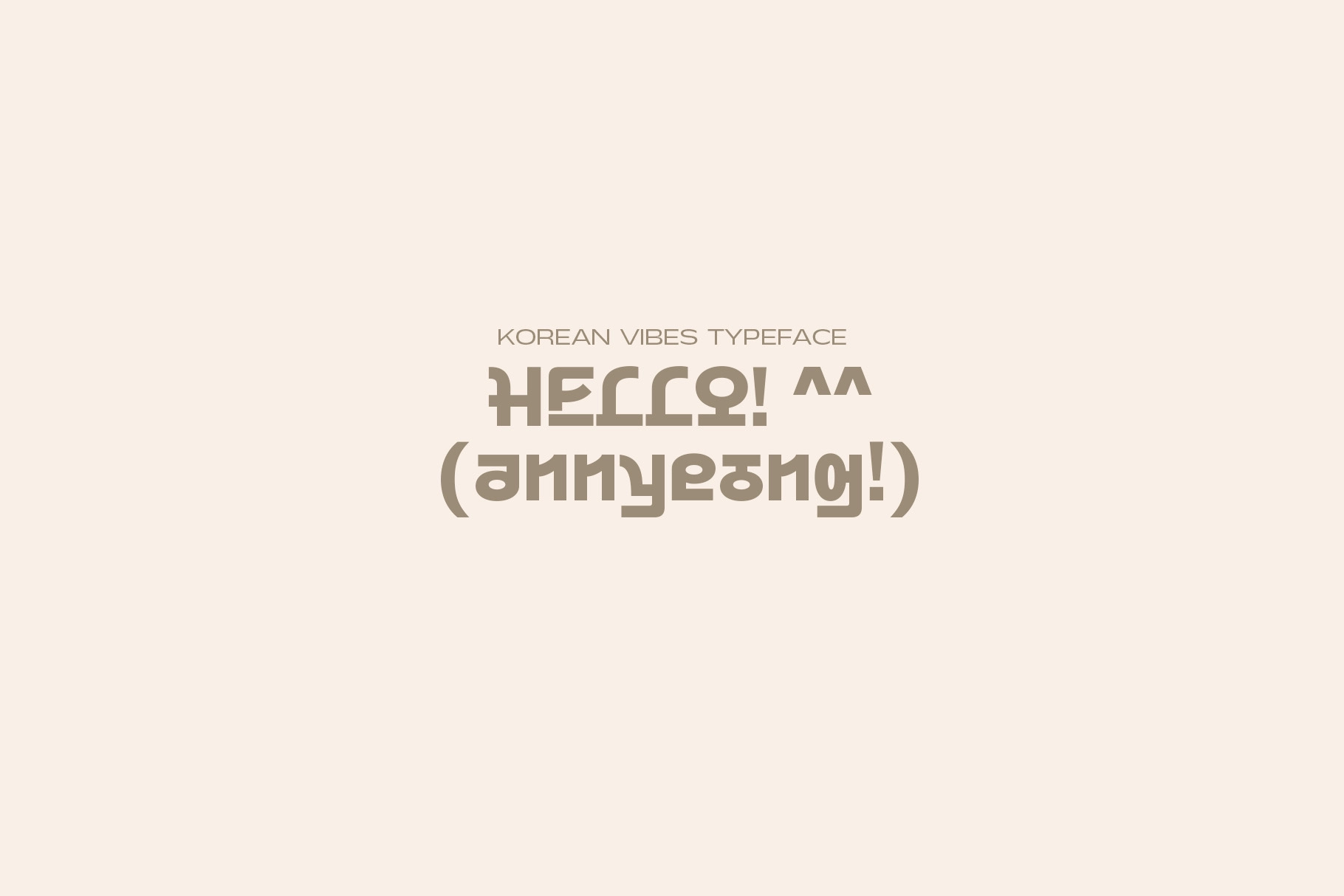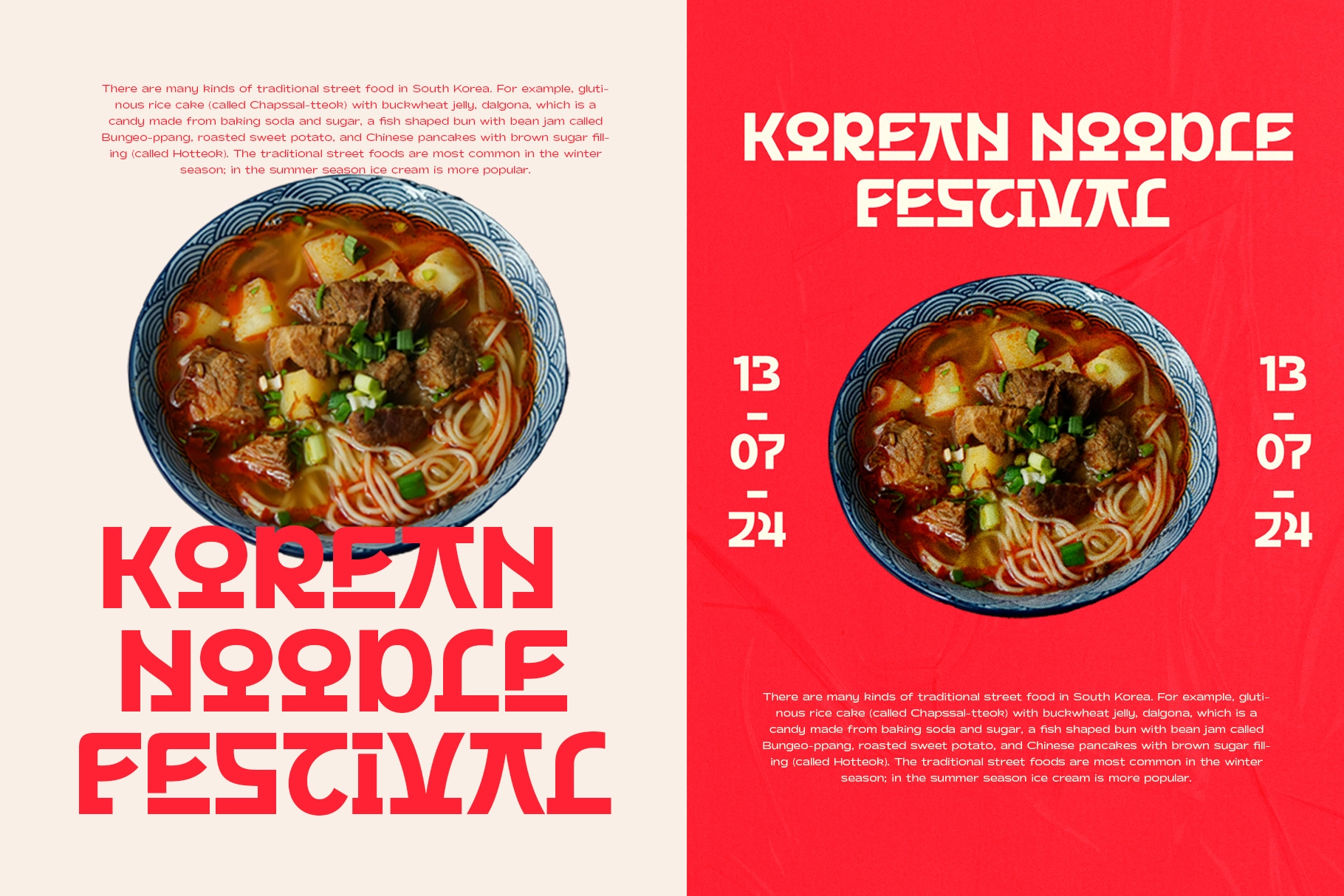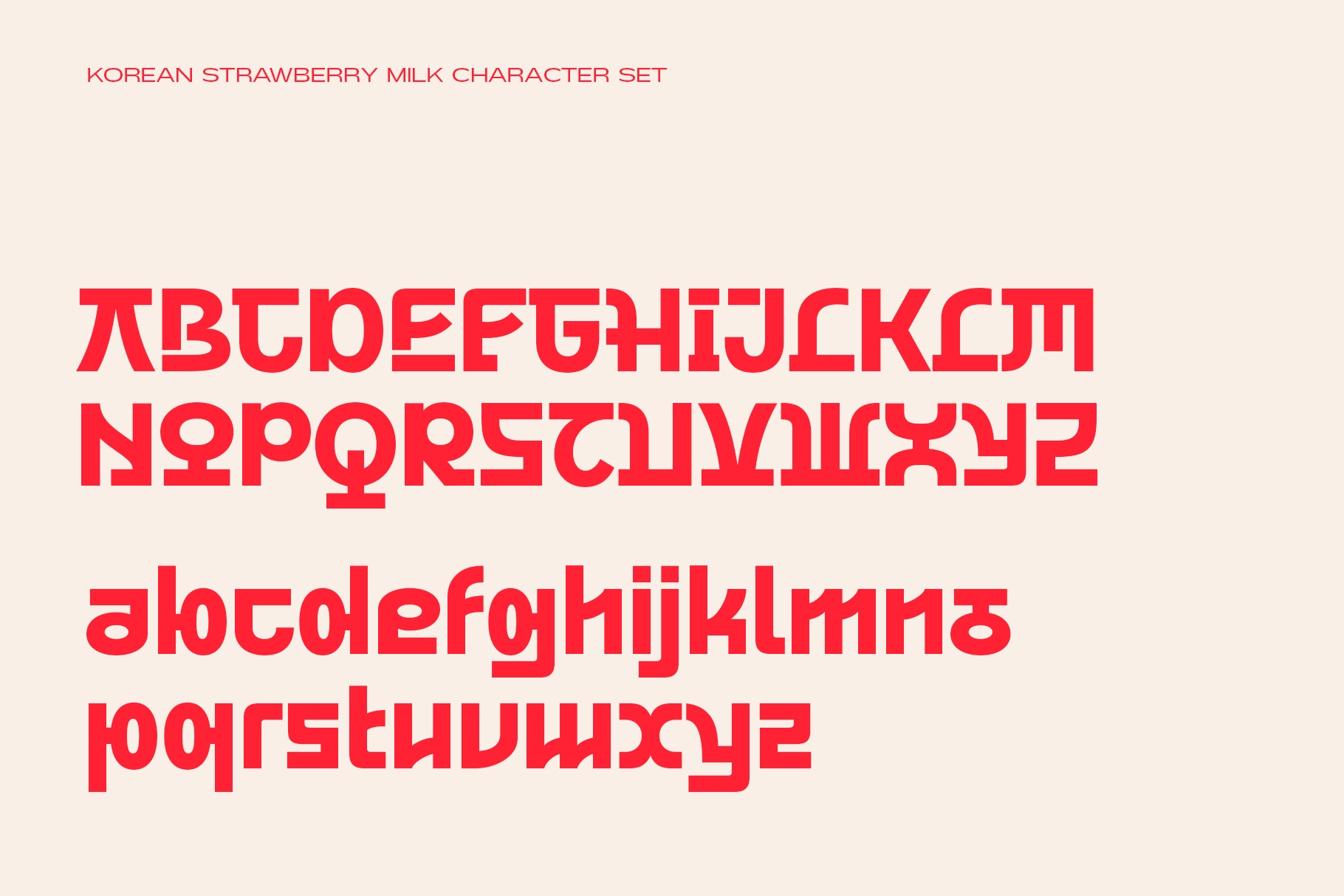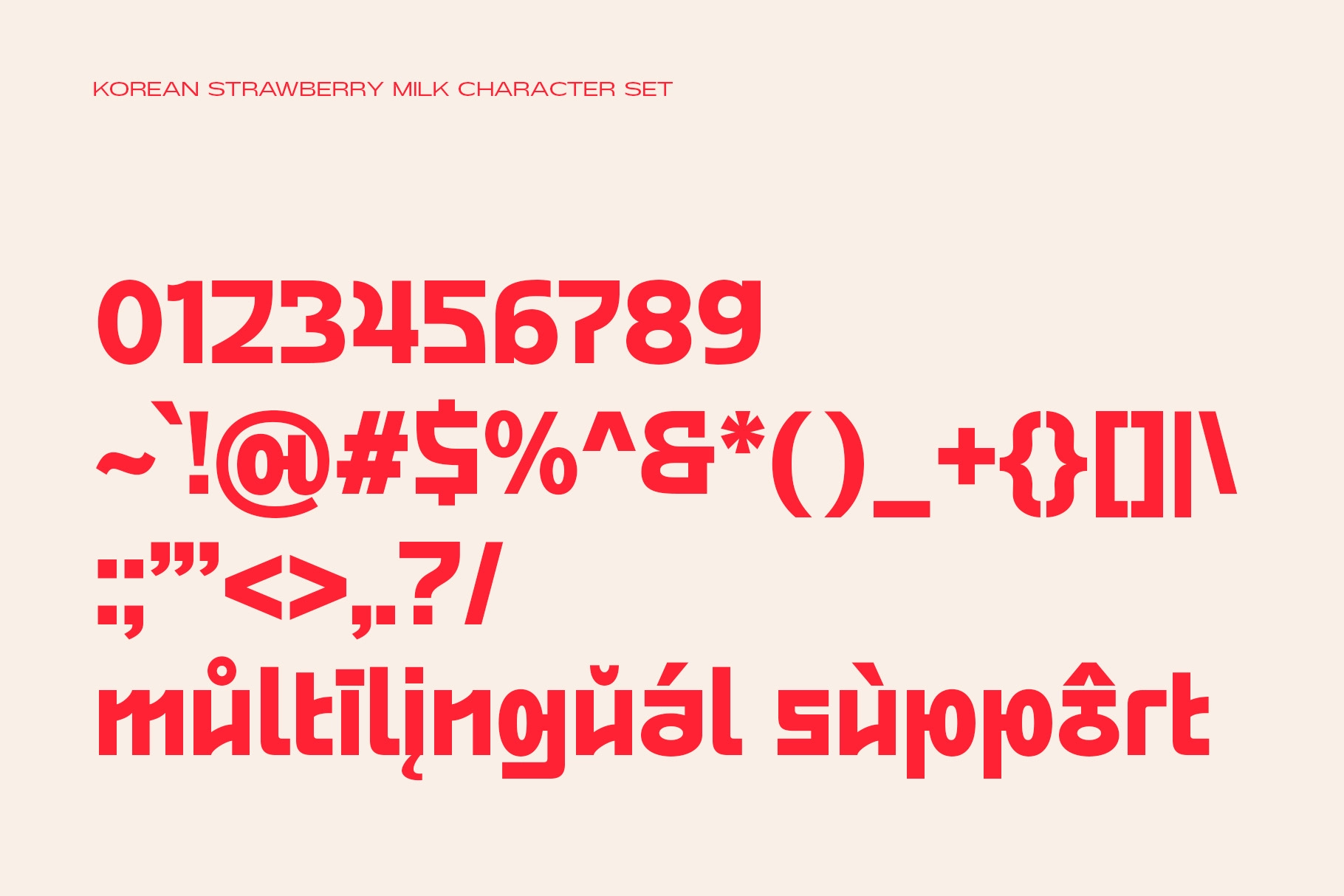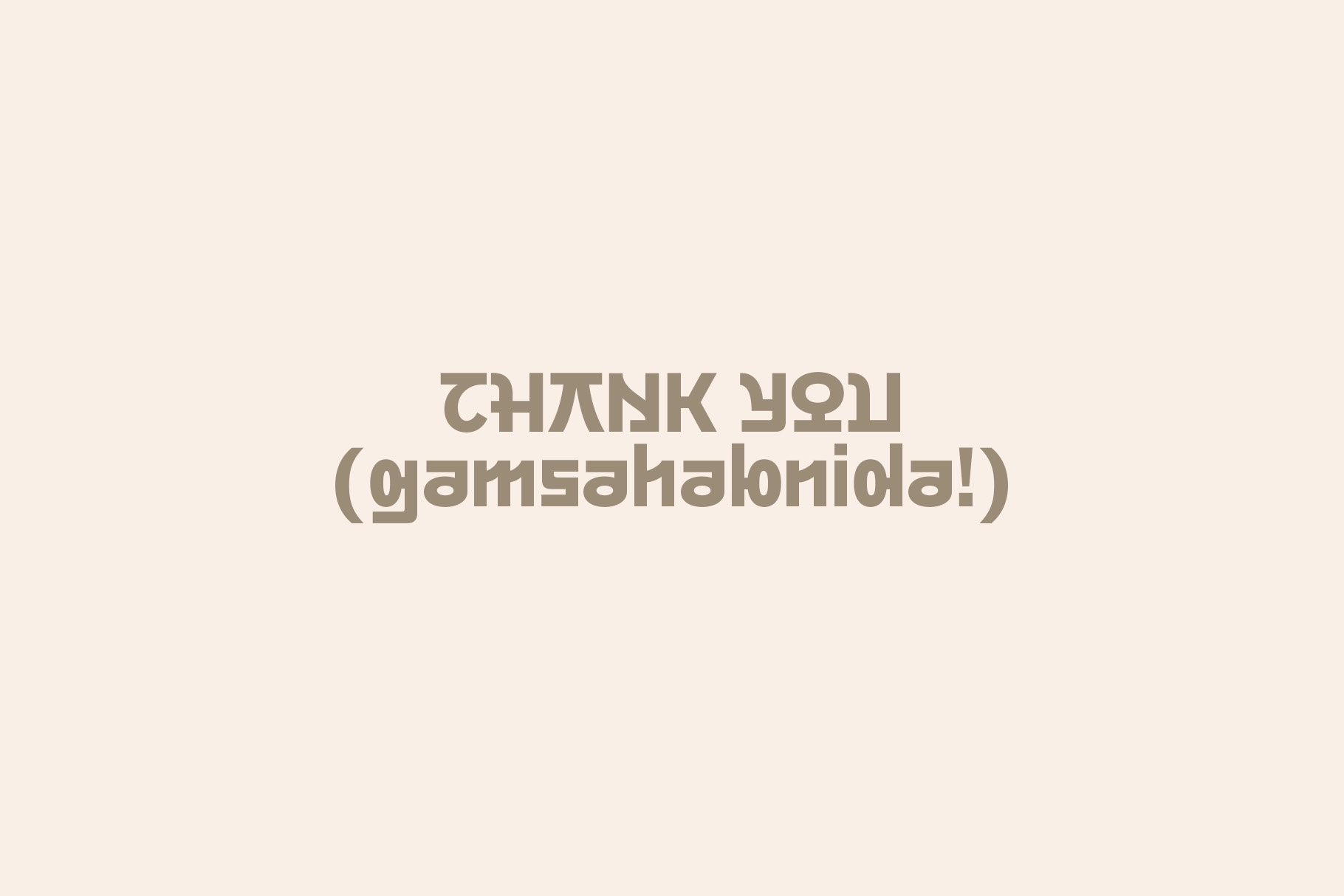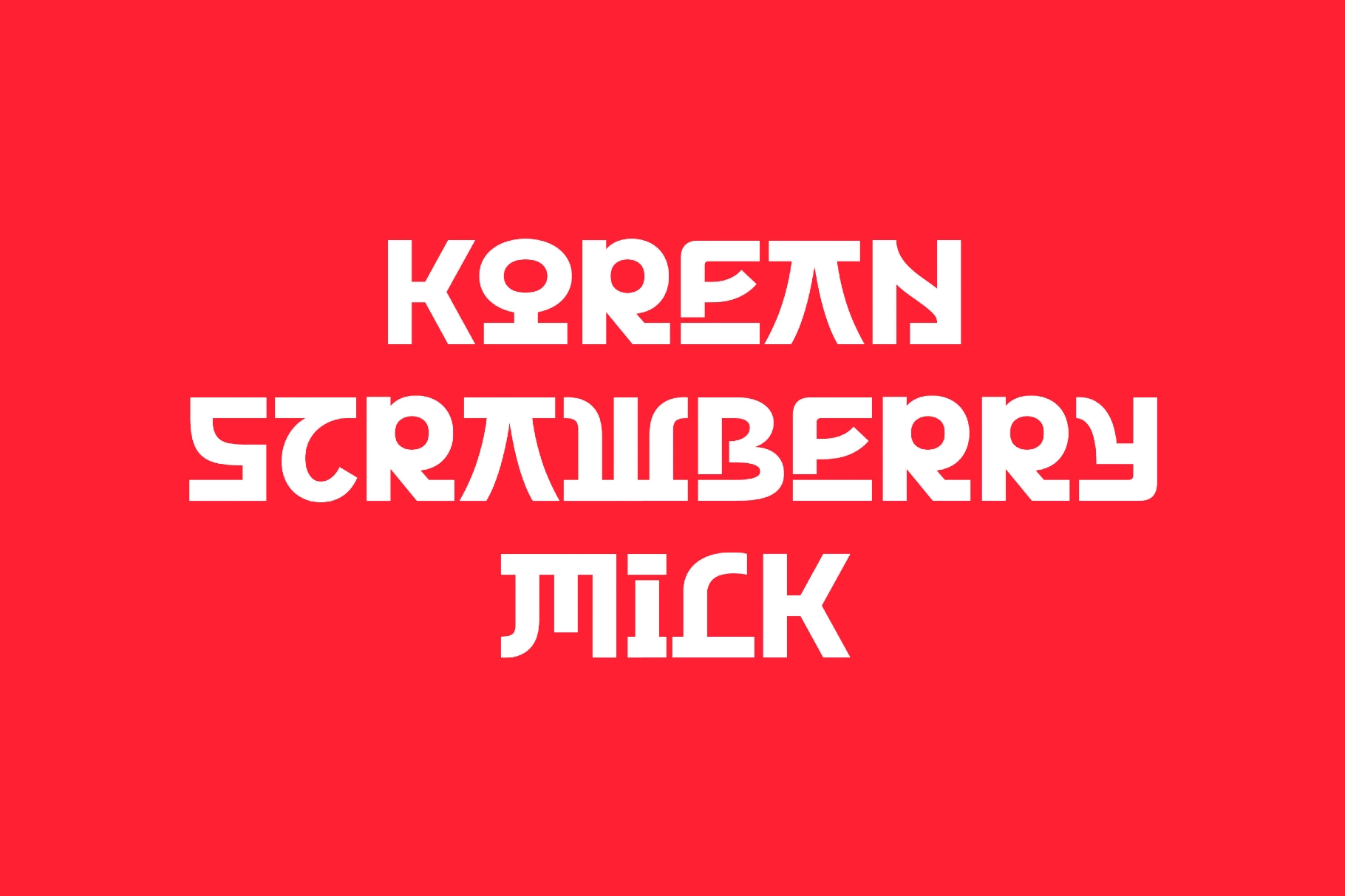
Korean Strawberry Milk - Hangul-Inspired Y2K Font
Korean Strawberry Milk
Korean Strawberry Milk is a bold Y2K display font built from thick, block-shaped letters inspired by hangul syllable blocks. Strokes are flat-cut, joins are rounded, and the overall shape is heavy and graphic.
The letters hold their shape at large sizes and still work in shorter labels and headlines. Use it for K-food packaging, noodle-shop signage, festival posters, drink labels, and social posts tied to Korean street culture.